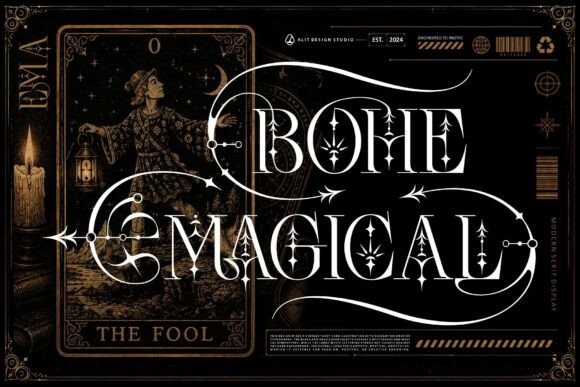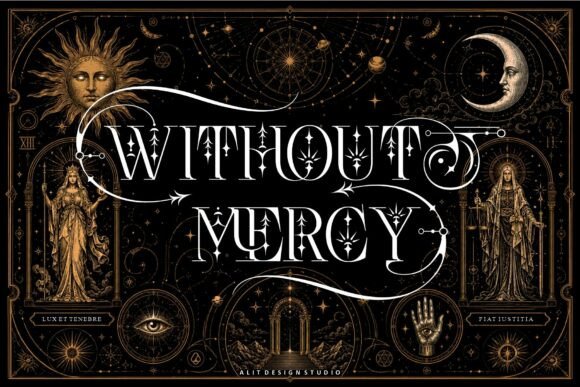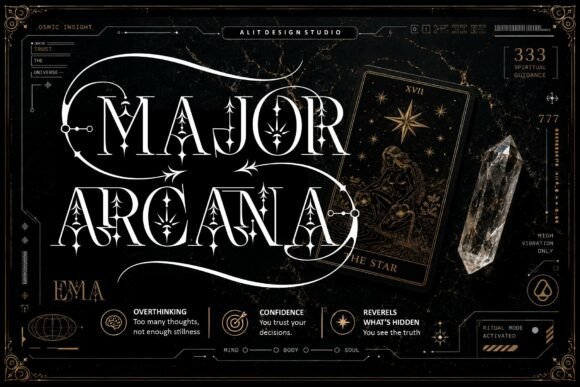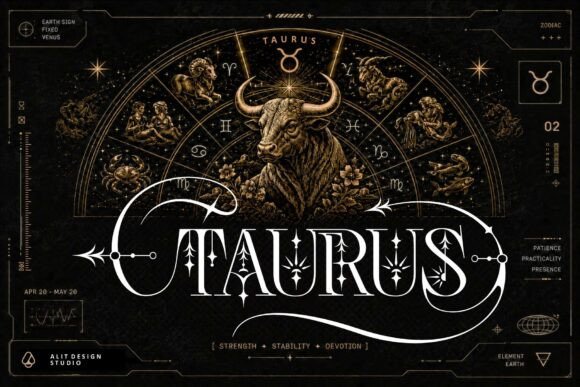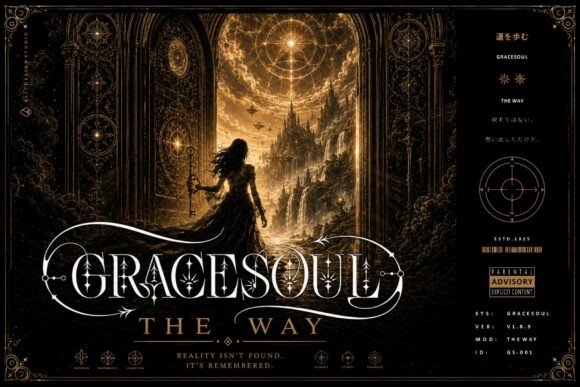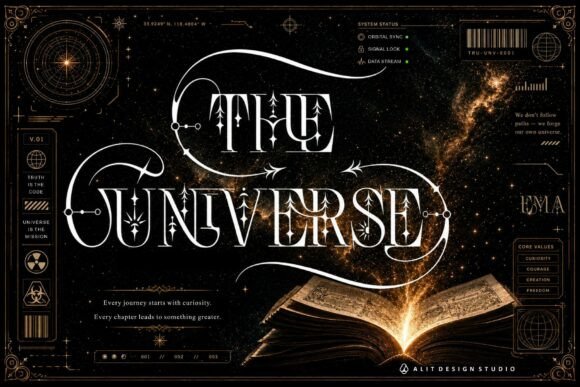
Introduction to Nebulan Star Typeface Font
Have you ever been inspired by the night sky, watching the stars twinkle and dance above you? For designers, this moment of cosmic wonder can spark a creative project like no other. As you gaze up at the celestial expanse, you might envision a typography that captures the essence of the unknown, a font that whispers secrets of the universe. This is where Nebulan Star Typeface Font comes in – a breathtaking bohemian serif font that embodies the mystical and magical soul of the cosmos.
With its unique blend of vintage and modern elements, Nebulan Star Typeface Font is a valuable resource for designers seeking to add an extra layer of sophistication and whimsy to their creative projects. Whether you’re working on a high-fantasy book layout, a luxury boutique branding project, or a social media visual storytelling campaign, this font is sure to transport your audience to a world of wonder and awe.
Key Features of Nebulan Star Typeface Font
- High-quality design for a unique and creative project: The Nebulan Star Typeface Font offers a distinctive and eye-catching style that can elevate your design to the next level.
- Transparent background: The Nebulan Star Typeface Font features a transparent background, allowing for easy layering and customization in your design project.
- High-resolution design: With a resolution of up to 300 DPI, the Nebulan Star Typeface Font is suitable for high-quality print projects and digital designs.
- Unique characteristics: This font features a unique blend of futuristic and celestial elements, making it perfect for projects that require a touch of magic and wonder.
- Perfect for design resource: The Nebulan Star Typeface Font is an excellent addition to any designer’s toolkit, offering a versatile and creative solution for a wide range of design projects.
Honest Review: Nebulan Star Typeface Font
I recently had the chance to dive into the Nebulan Star Typeface Font, and I must say it’s been an interesting experience. As a designer, I’m always on the lookout for high-quality design resources that can elevate my creative projects.
- High-quality design: The font is crisp and clean, making it perfect for digital design projects.
- Transparent background: The font is easily scalable and can be used on any background.
- Creative freedom: The font’s unique design allows for endless creative possibilities.
- ⚠️ Limited font styles: The font only comes in a few styles, which may limit its versatility in certain projects.
- ⚠️ Not suitable for formal projects: The font’s playful design may not be suitable for formal or professional projects.
Overall, I think the Nebulan Star Typeface Font is a great addition to any designer’s toolkit. While it may have some limitations, its unique design and high-quality construction make it a valuable resource for any creative project.
Nebulan Star Typeface Font
To get the most out of the Nebulan Star Typeface Font, experiment with different font sizes, colors, and combinations. Use the font in creative ways such as in titles, headings, and quotes to add visual interest to your design.
The Nebulan Star Typeface Font is perfect for various design projects such as: logos, branding materials, social media graphics, and marketing materials. It’s also great for creating eye-catching titles, headings, and quotes for presentations and documents.
Yes, the Nebulan Star Typeface Font has a transparent background, allowing you to easily integrate it with your design. This feature makes it ideal for creating high-quality designs with a seamless background.